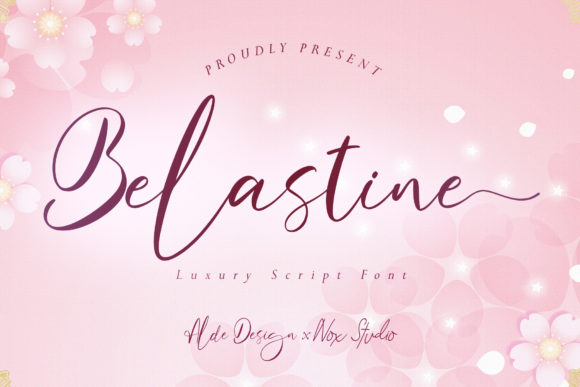
Behold Belastine, the font that will bestow upon your designs an aura of elegance and charm. Its graceful strokes dance across the page, evoking a sense of sophistication that will leave your audience spellbound. Crafted with meticulous care by the talented minds at Nox Studio, Belastine is a script font that embodies the essence of timeless beauty.
Whether you're designing a wedding invitation, a heartfelt thank-you card, or a brand logo that exudes professionalism, Belastine is your perfect companion. Its versatility extends to an array of creative projects, allowing you to express your unique style effortlessly.
With Belastine, your words will sing with a melody that captivates the senses. Its carefully crafted characters intertwine harmoniously, creating a visual symphony that dances before the eyes. Experience the joy of witnessing your designs transformed into works of art, infused with the magic of Belastine's enchanting touch.
Embrace the limitless possibilities that await you with Belastine. Its PUA encoding grants you effortless access to a treasure trove of glyphs and swashes, empowering you to unleash your creativity like never before. Say goodbye to the mundane and embrace the extraordinary with Belastine, the font that will elevate your designs to dizzying new heights.